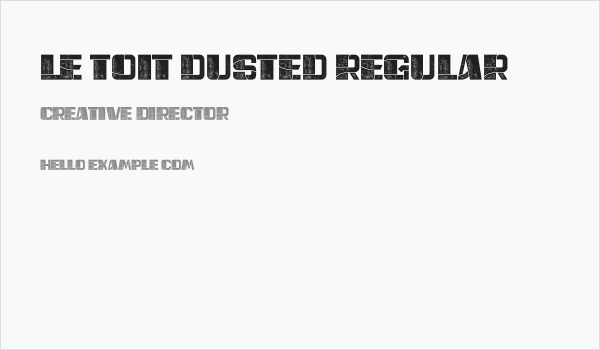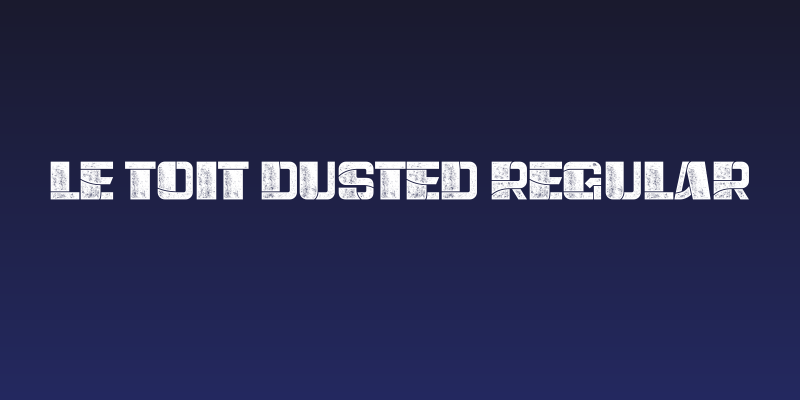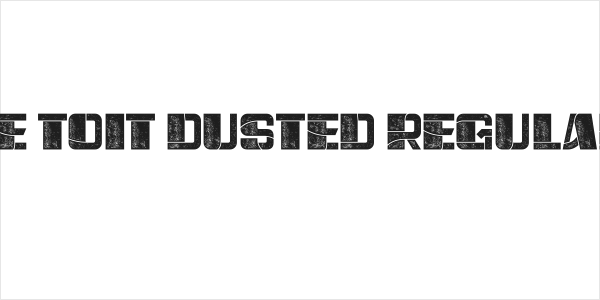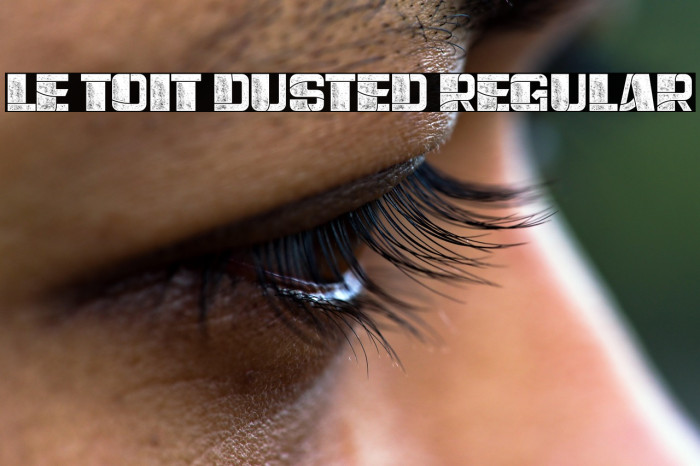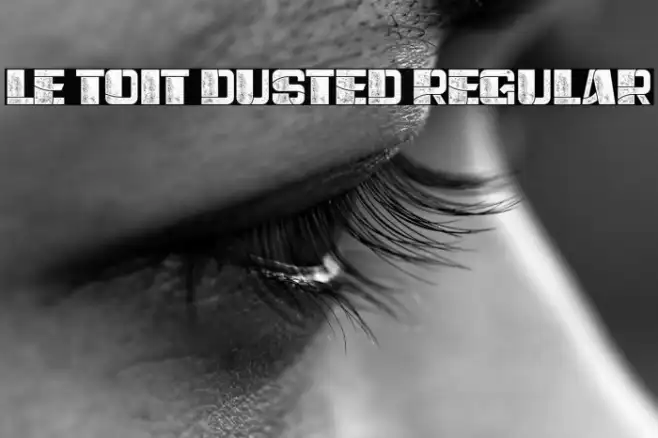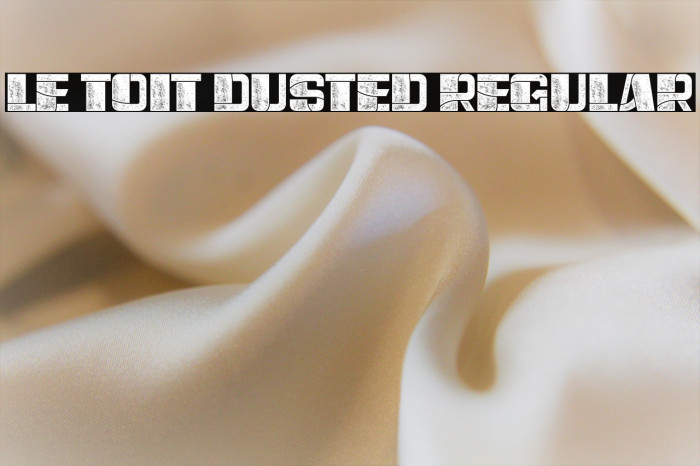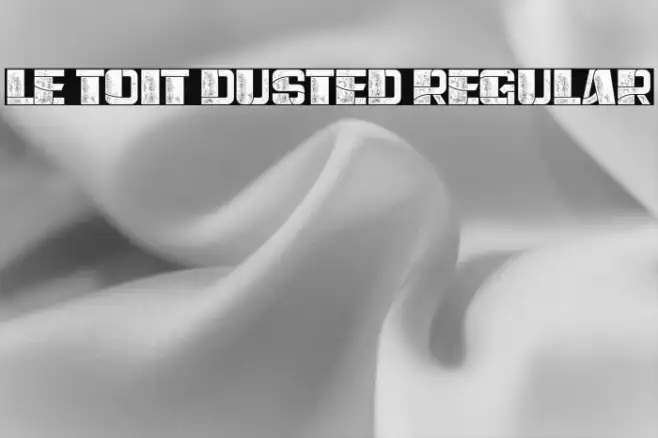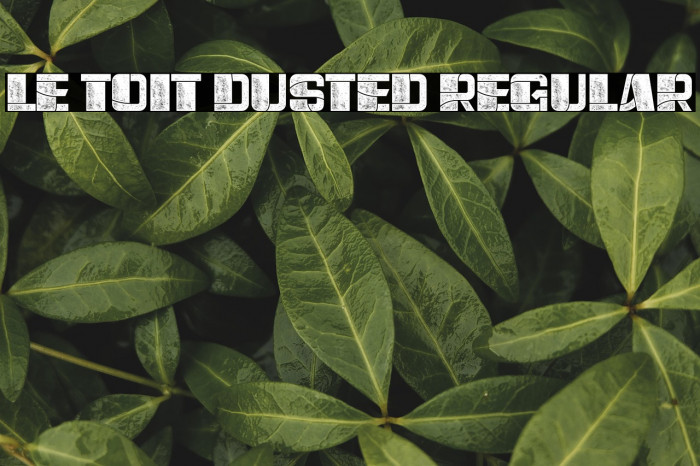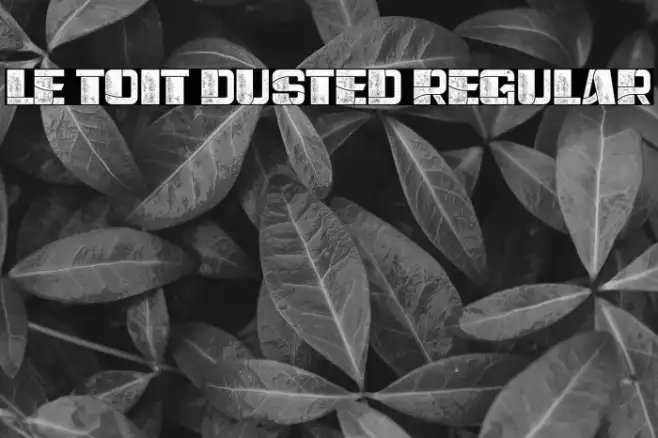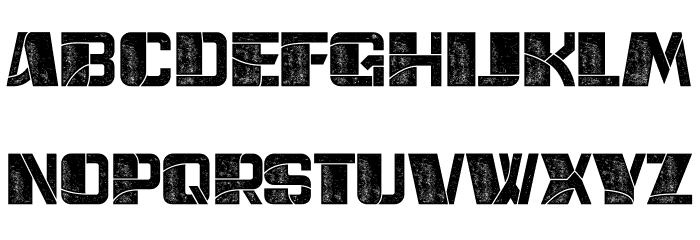
Le Toit Dusted Regular Font
Le Toit Dusted Regular Description
This font features a bold, distressed style with a textured, weathered appearance. The characters are blocky and robust, with a unique pattern that gives them a rugged, industrial feel. The distressed effect adds a vintage touch, making it suitable for designs that require a gritty, worn look. The uppercase letters are uniform in height, and the spacing between characters is consistent, providing a balanced and cohesive appearance. This font's distinctive style makes it ideal for projects that aim to convey strength and durability.
| Proposed Projects | Ideal for posters, album covers, branding for outdoor or adventure products, and any design needing a vintage, gritty aesthetic. |